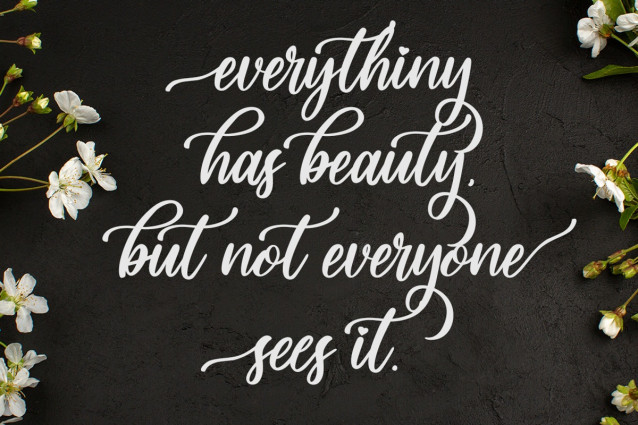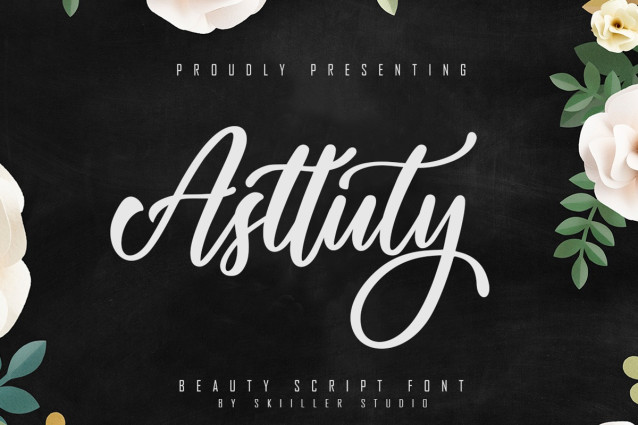
Asttuty Script Font
Asttuty Script Font – This is our newest product called Asttuty Beauty Script Font. This is a Beautiful font designed according to general needs Asttuty is a very good font for logos, blogs / web headlines, clothing, invitations, posters, cafe / restaurant signs, and many others.